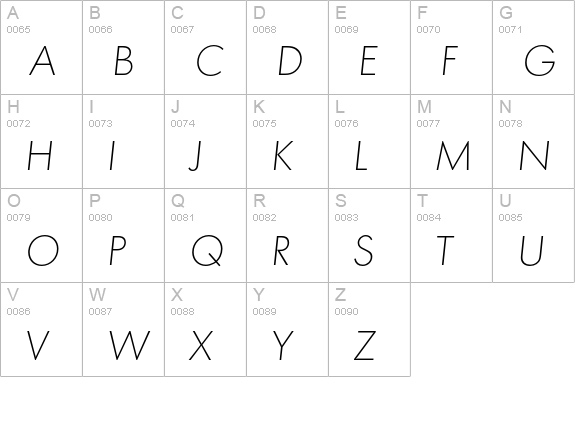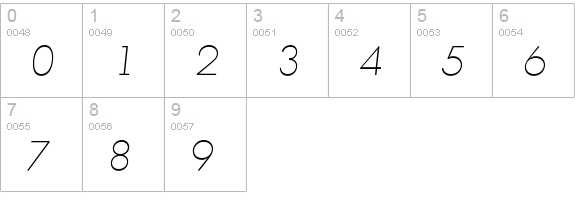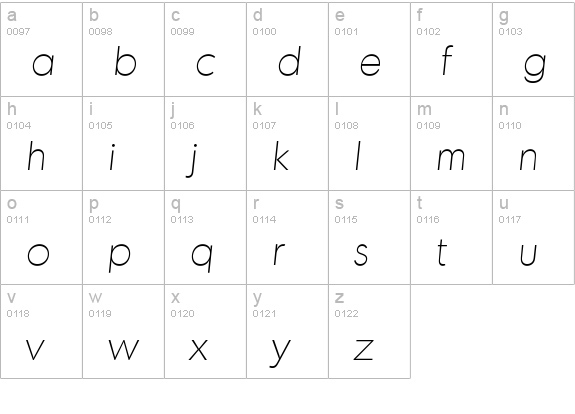
Montreal-XlightIta is a modern and elegant font that exudes sophistication and style. With its sleek and streamlined design, this typeface is perfect for adding a touch of class to any project or design. The thin and delicate strokes of Montreal-XlightIta create a sense of refinement and grace, making it ideal for use in branding, logos, and editorial layouts. What sets Montreal-XlightIta apart is that it is available for free download at FontsMarket.com. This means you can easily access this beautiful font and use it in your creative projects without any cost. Whether you're a professional designer or a hobbyist looking to elevate your designs, Montreal-XlightIta is a versatile and attractive choice that will make your work stand out. Download Montreal-XlightIta for free today at FontsMarket.com and enhance your designs with this elegant and sophisticated font.